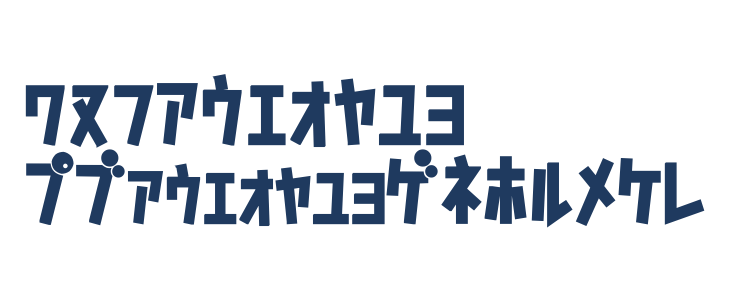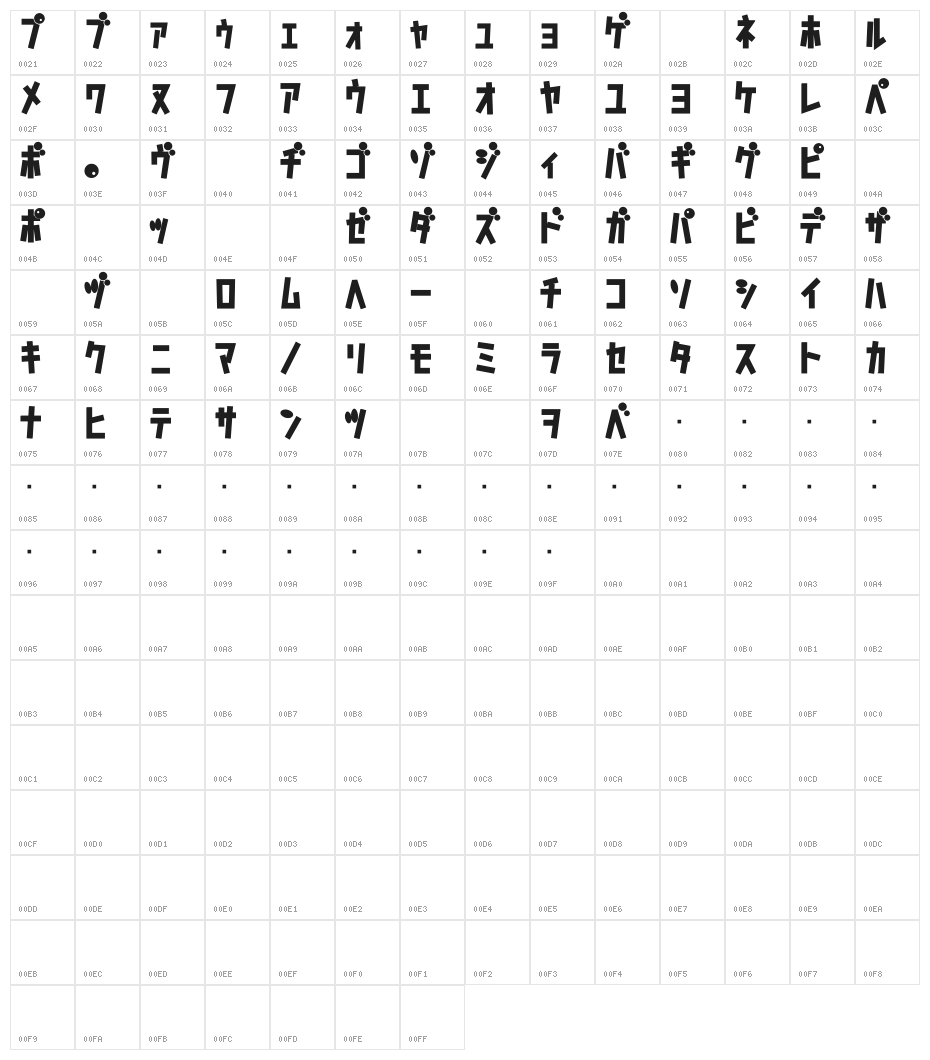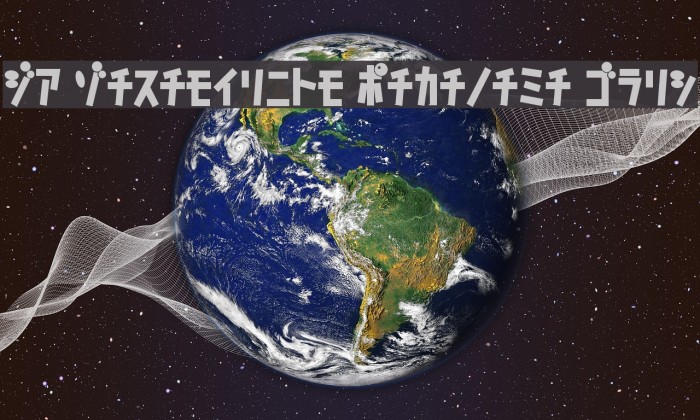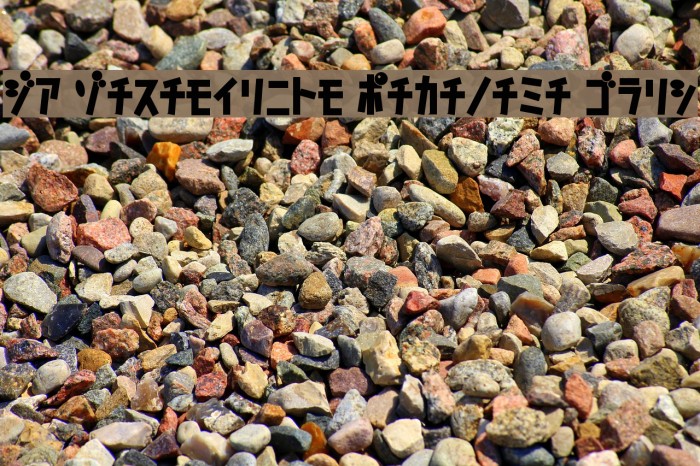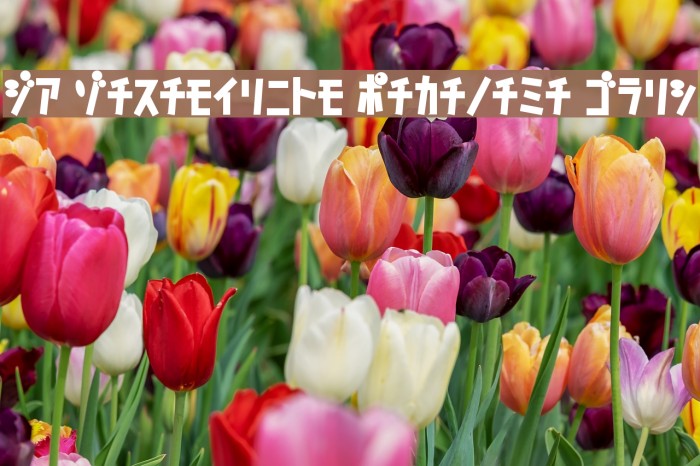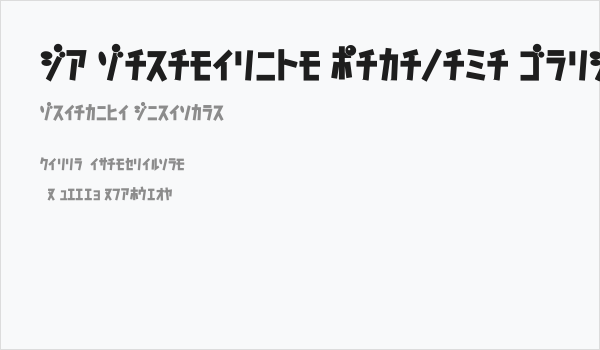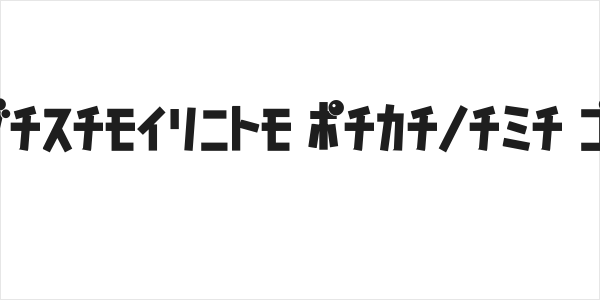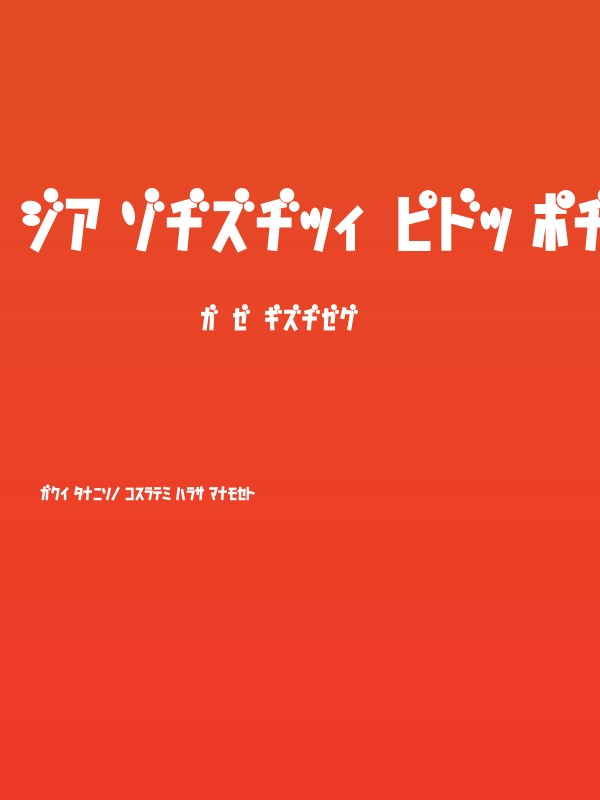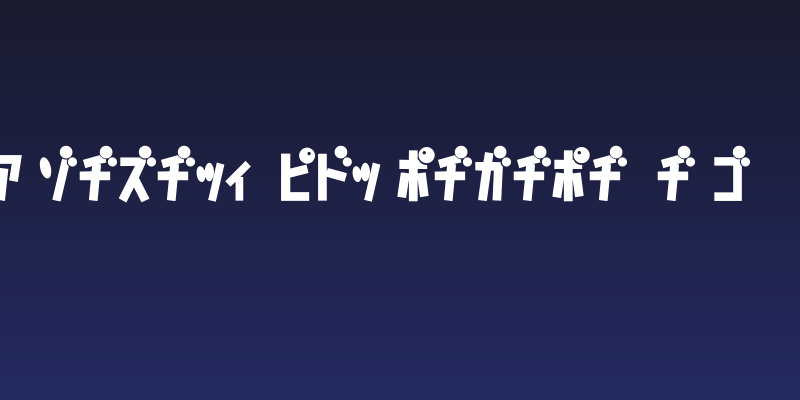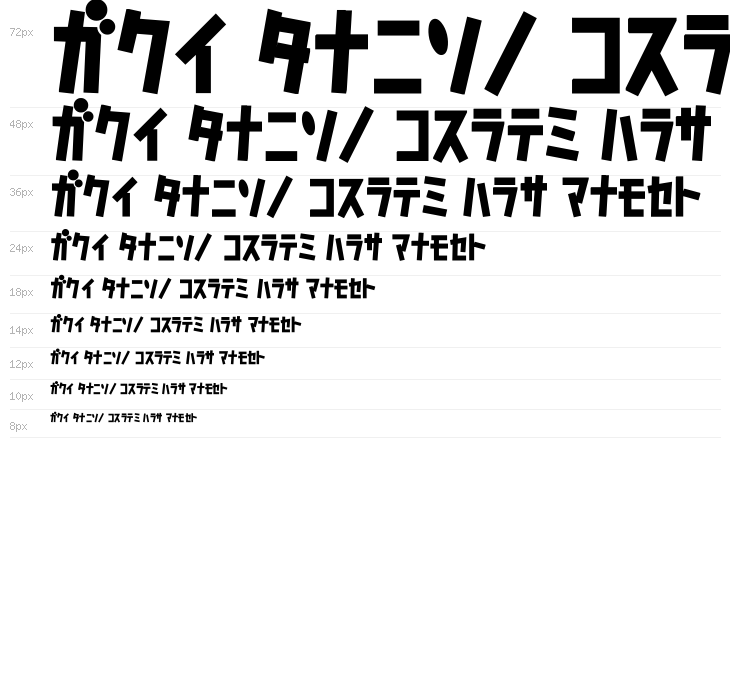
D3 Caramelism Katakana Bold Font
D3 Caramelism Katakana Bold Description
This font features bold, geometric shapes with a playful and modern aesthetic. The characters are designed with a strong emphasis on symmetry and balance, creating a visually striking appearance. The bold weight and angular forms give it a distinctive and dynamic look, making it ideal for eye-catching designs. The font's style is reminiscent of retro-futuristic themes, with a touch of whimsy that adds character to any project. Its unique design elements make it suitable for creative and unconventional applications.
| Proposed Projects | Ideal for posters, branding, video game graphics, and any project requiring a bold, unique typeface. |